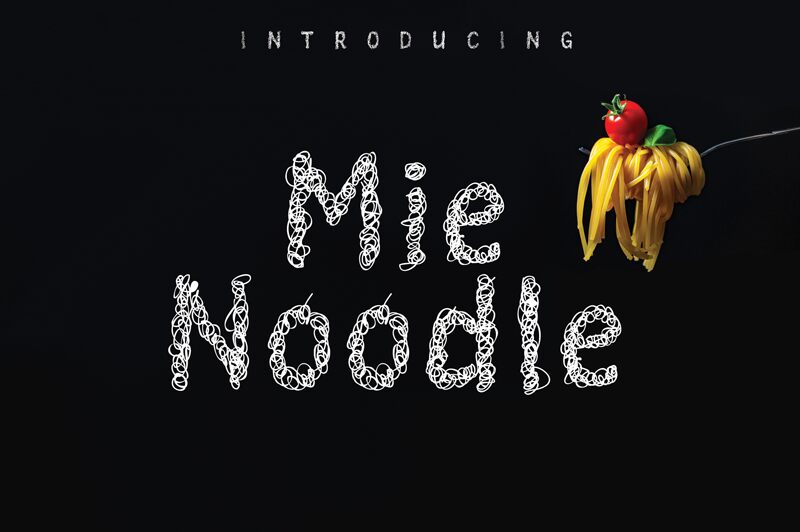
Mie Noodle, a distinctive display font designed by Royaltype, brings a unique and decorative touch to your projects. With its noodle-like appearance, this font is perfect for food-related designs, particularly those centered around noodles.
Whether you're creating YouTube thumbnails, titles or subtitles for videos, books, magazines, flyers or any other food-oriented content, Mie Noodle will add a playful and eye-catching element to your work. With 290 glyphs and support for Latin and Turkish characters, this font offers versatility and creativity in expressing your culinary ideas.
Elevate your designs with the delectable charm of Mie Noodle.